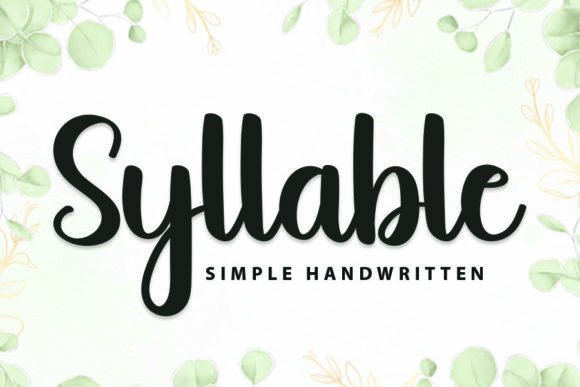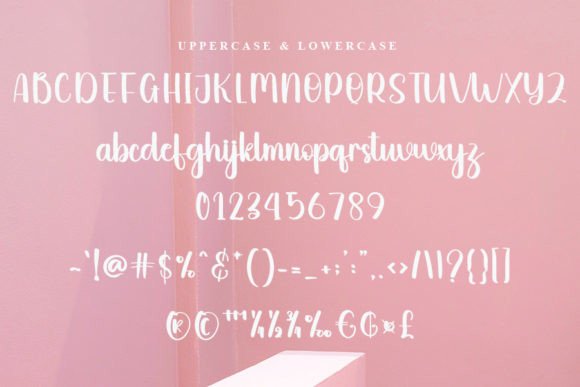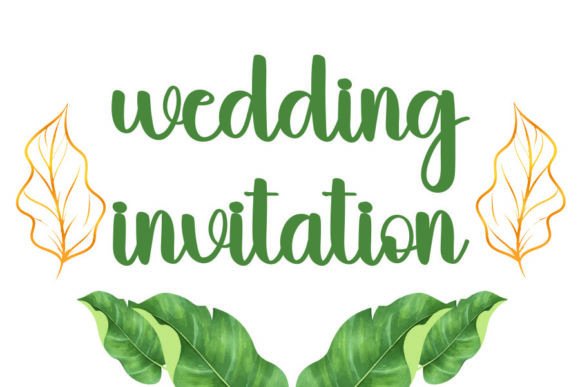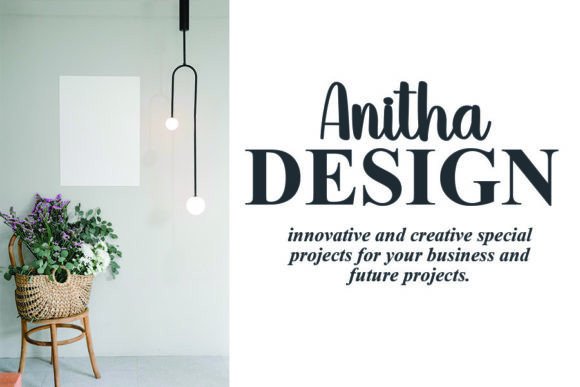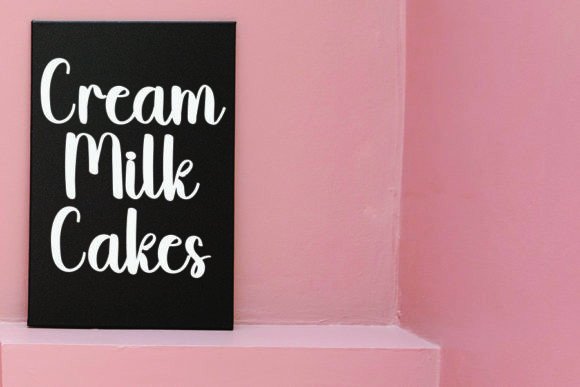
Syllable Font
About Syllable Font
Syllable is a welcoming and friendly handwritten font, thoughtfully crafted to become a cherished favorite. Its unique design makes it a valuable addition to your font library, promising to breathe life into all your creative projects.
This font’s friendly demeanor adds a warm and approachable quality to any text, making it versatile across a range of design applications. Whether you’re working on branding, graphic design, invitations, or any creative project, Syllable stands out as a reliable choice.
The careful design of Syllable ensures that each character carries a distinct charm, contributing to an overall aesthetic that is both engaging and memorable. Its handwritten quality adds a personal touch, making it suitable for various contexts where a friendly and informal style is desired.
As you integrate Syllable into your design toolkit, anticipate its transformative effect on your projects. Let it be the element that brings your creative ideas to life, creating a positive and approachable atmosphere for your audience.
In summary, Syllable is more than just a font; it’s a friendly companion for your creative endeavors. Embrace its charm and watch as it becomes a go-to favorite, adding a delightful touch to all your design projects.